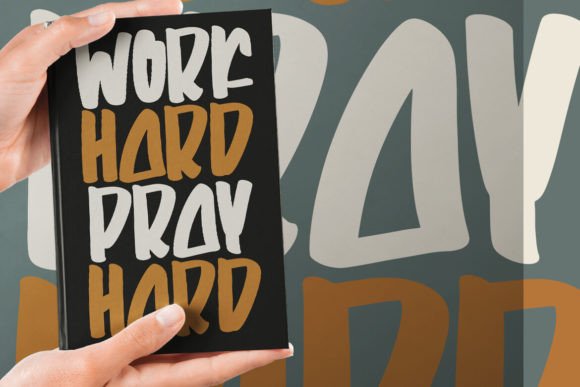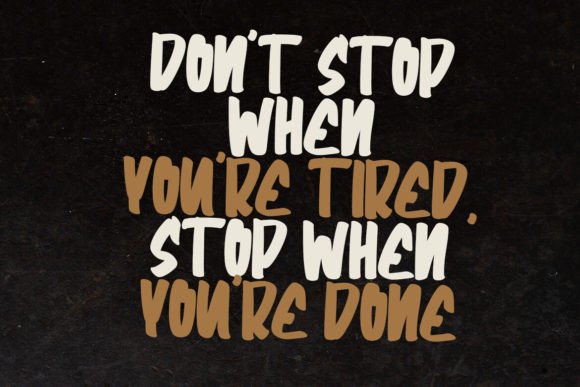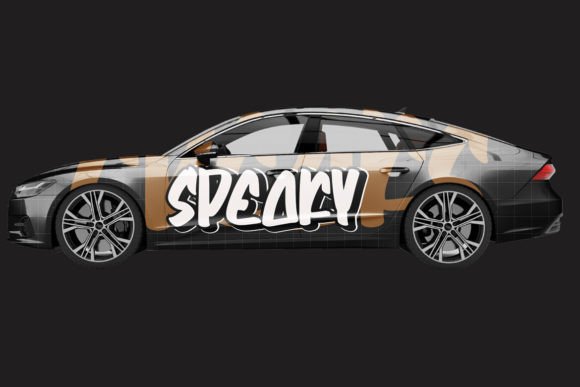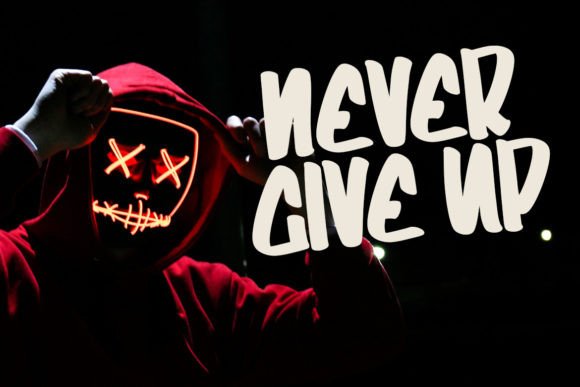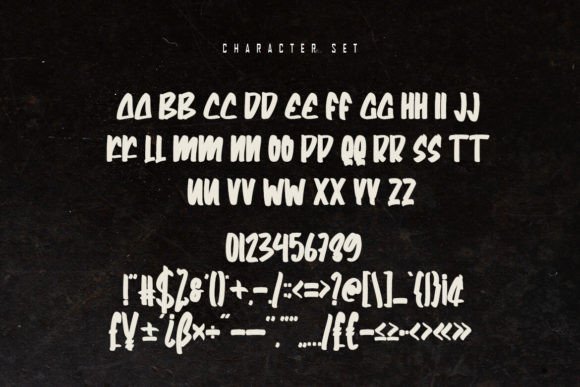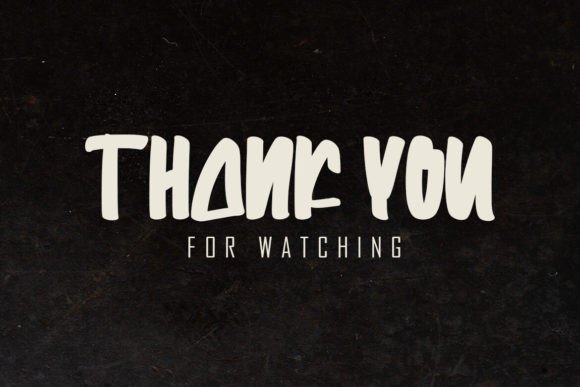
Creaks Font: The Ultimate Graffiti Font for Fun Projects
Are you a designer or crafter looking for a font that can add a touch of playfulness and fun to your projects? Look no further than Creaks Font, a graffiti font that is perfect for children’s parties, cute quotes, and any other fun-related projects. In this article, we’ll take a closer look at Creaks Font, its features, and how you can use it to take your designs to the next level.
What is Creaks Font?
Creaks Font is a unique and creative graffiti font that is designed to bring a smile to your face. With its bold and colorful letters, this font is perfect for adding a touch of whimsy and fun to your designs. Whether you’re working on a children’s party invitation, a cute quote, or a fun DIY project, Creaks Font is the perfect choice.
Features of Creaks Font
Creaks Font has several features that make it stand out from other fonts. Some of its key features include:
- Unique and Creative Design: Creaks Font has a one-of-a-kind design that is sure to grab attention. Its bold and colorful letters are perfect for adding a touch of fun and whimsy to your designs.
- Easy to Read: Despite its graffiti style, Creaks Font is easy to read and understand. This makes it perfect for use in quotes, posters, and other designs where readability is important.
- Highly Versatile: Creaks Font can be used for a wide range of projects, from children’s parties to cute quotes and more.
Benefits of Using Creaks Font
There are several benefits to using Creaks Font in your designs. Some of the key benefits include:
- Adds a Touch of Fun and Whimsy: Creaks Font adds a touch of fun and whimsy to your designs, making them more engaging and attention-grabbing.
- Perfect for Children’s Projects: Creaks Font is perfect for children’s projects, such as party invitations, coloring pages, and more.
- Increases Creativity: Creaks Font can help increase your creativity and inspire new ideas for your designs.
In conclusion, Creaks Font is a unique and creative graffiti font that is perfect for adding a touch of fun and whimsy to your designs. With its bold and colorful letters, easy readability, and high versatility, Creaks Font is the perfect choice for designers and crafters looking to take their projects to the next level. So why wait? Grab Creaks Font now and start creating fun and engaging designs that will leave a lasting impression!
- Q: What is Creaks Font?
A: Creaks Font is a graffiti font designed for fun projects, such as children’s parties, cute quotes, and more.
- Q: Is Creaks Font easy to read?
A: Yes, despite its graffiti style, Creaks Font is easy to read and understand.